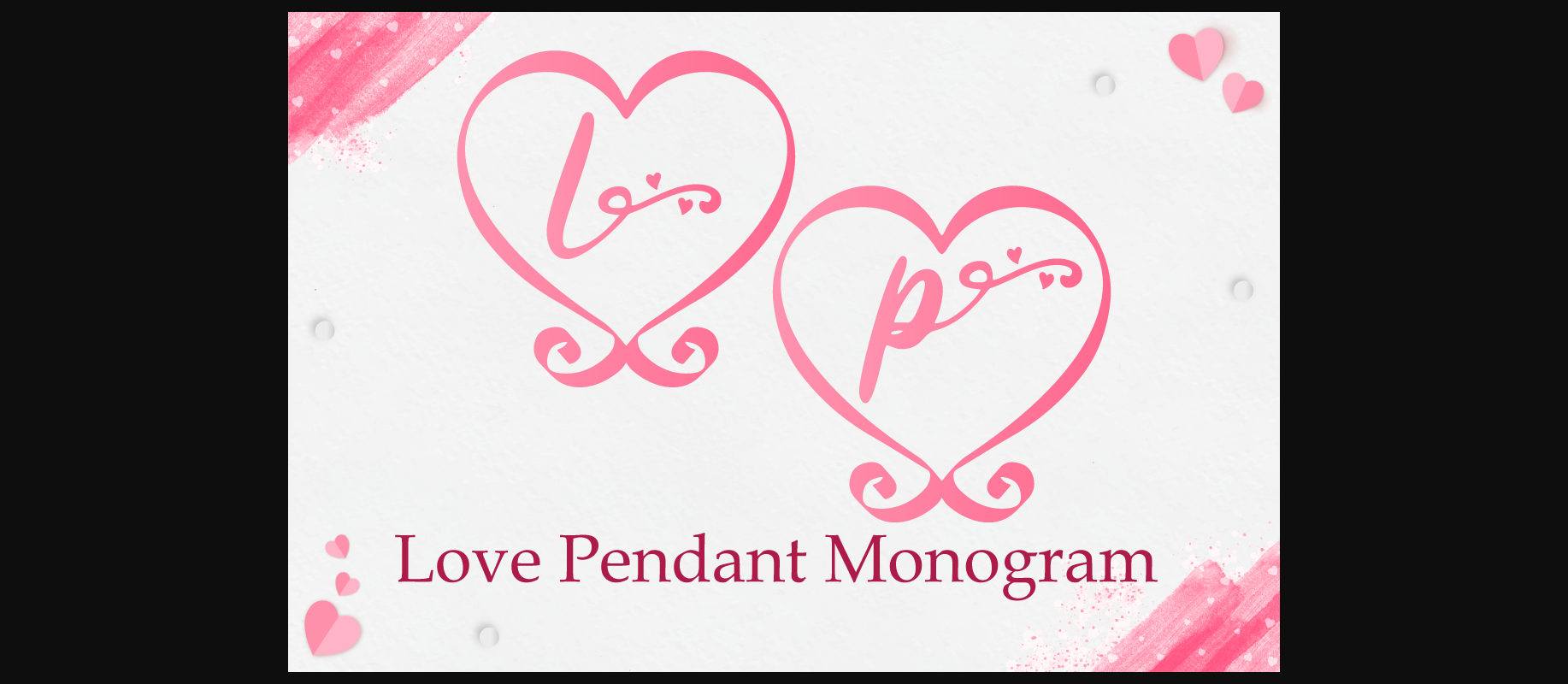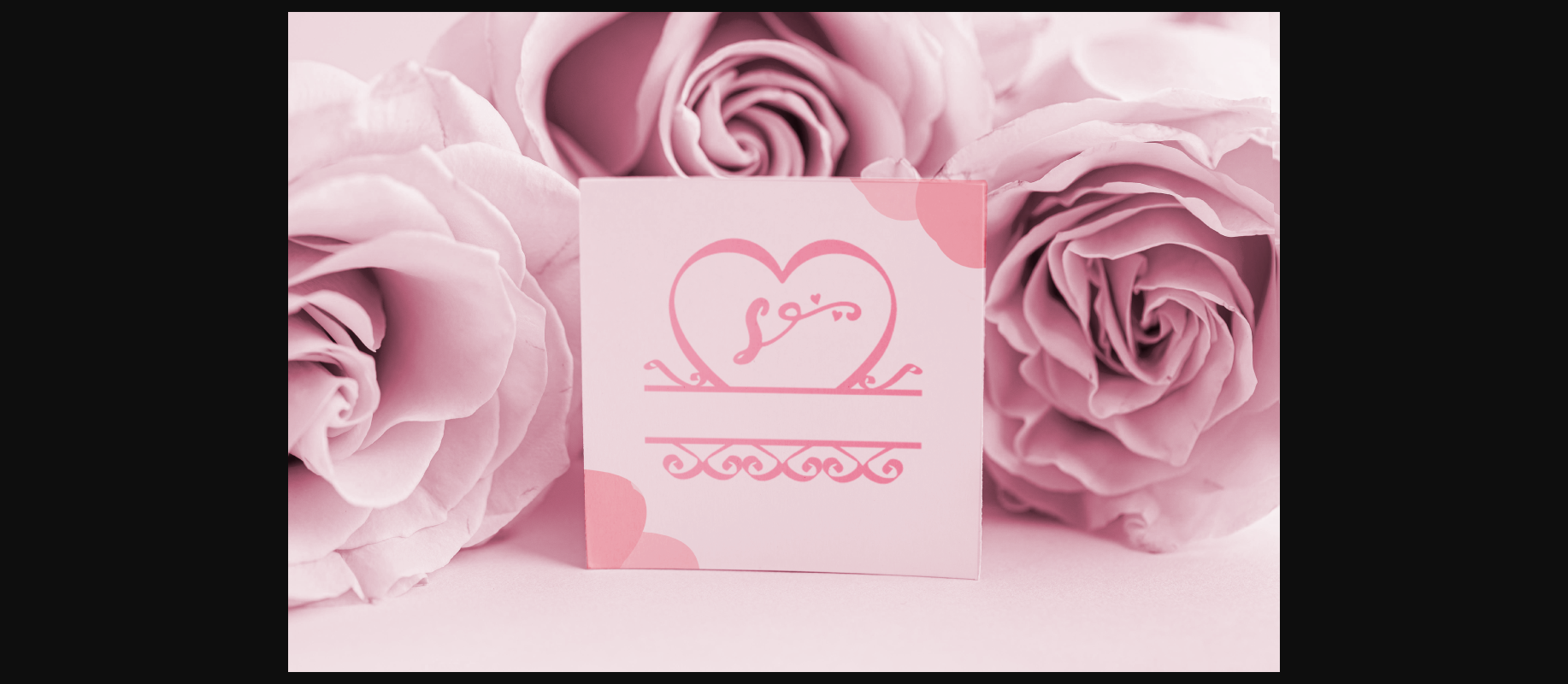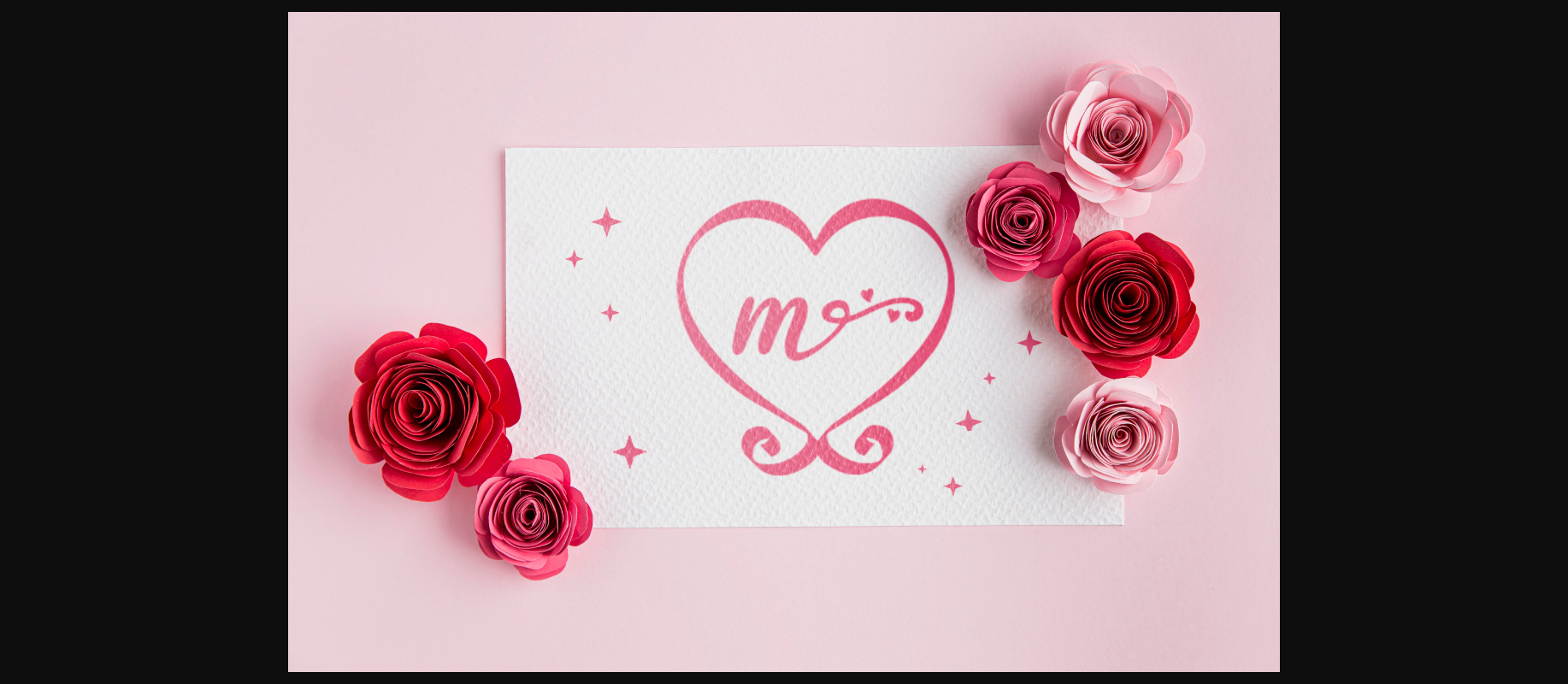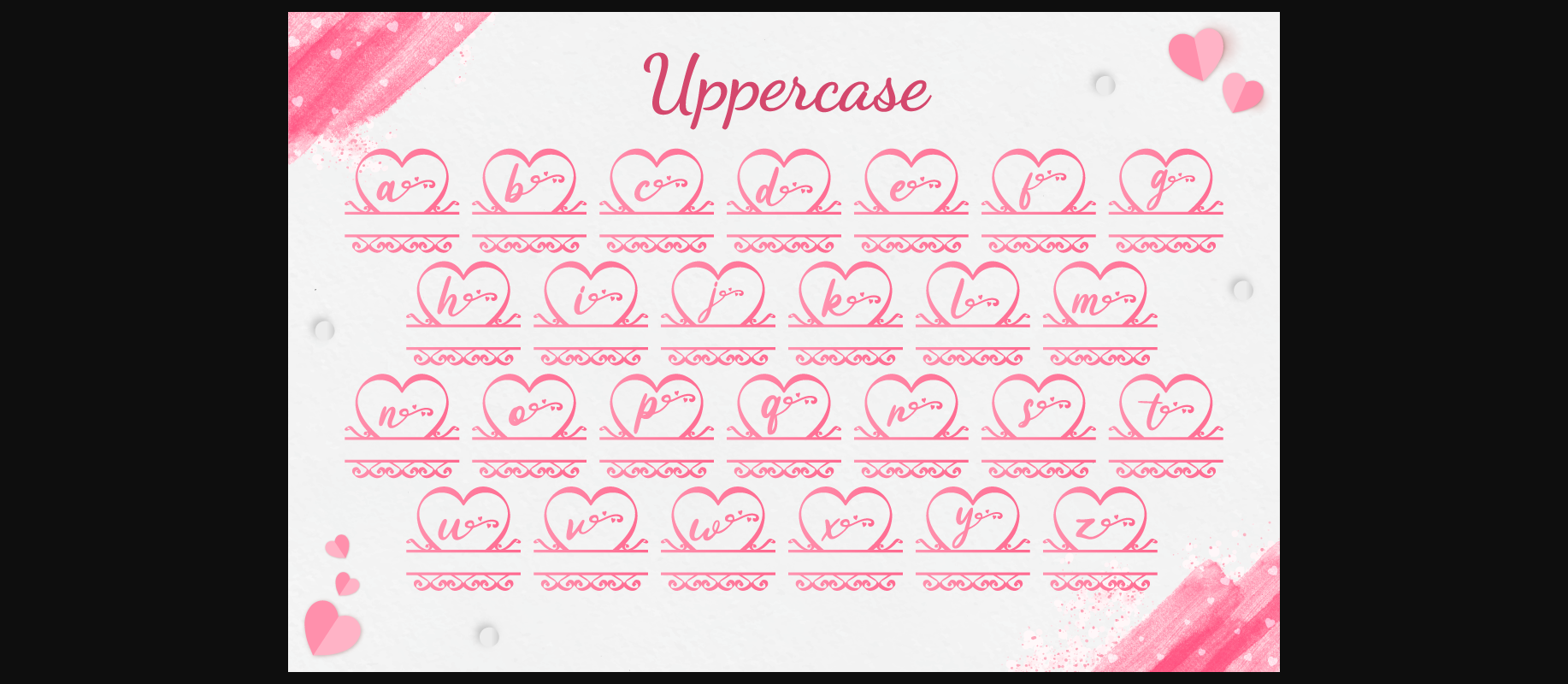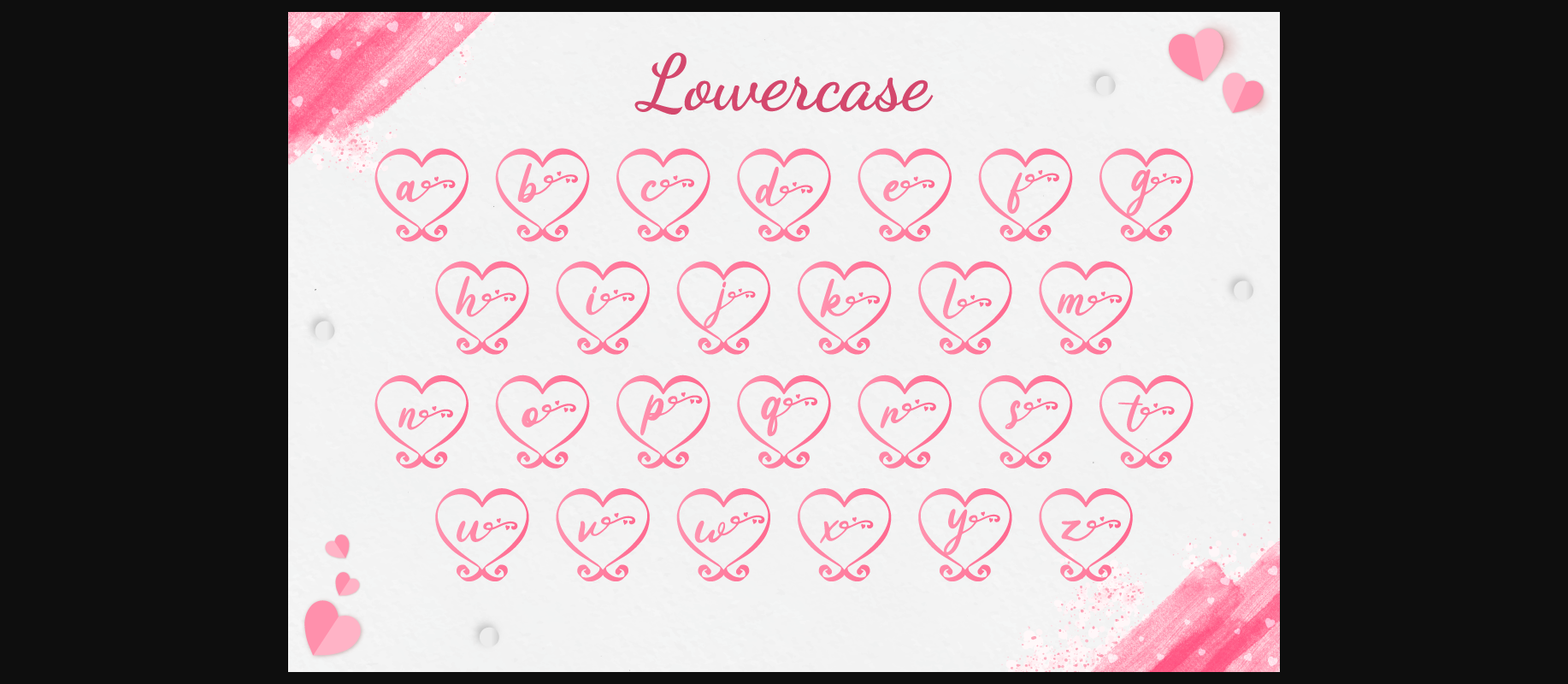
Love Pendant Monogram Font
About Love Pendant Monogram Font
Create gorgeous and timeless designs with Love Pendant Monogram, an interesting and unique decorative font.
Fall in love with its incredibly stylish look and use it for logos, quotes, invitations, business cards, power point presentations, and more!